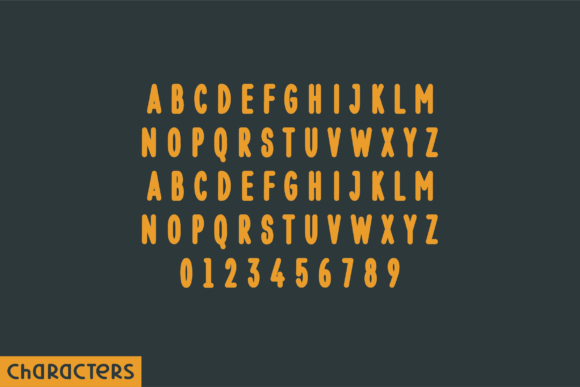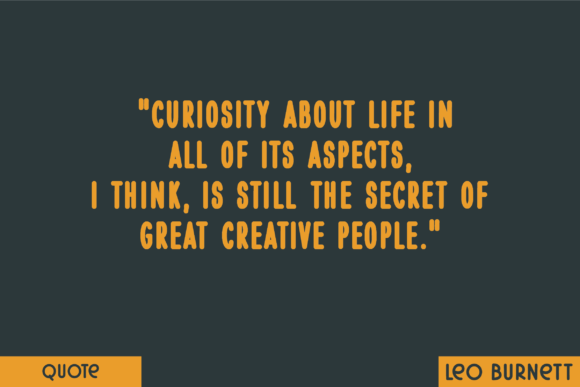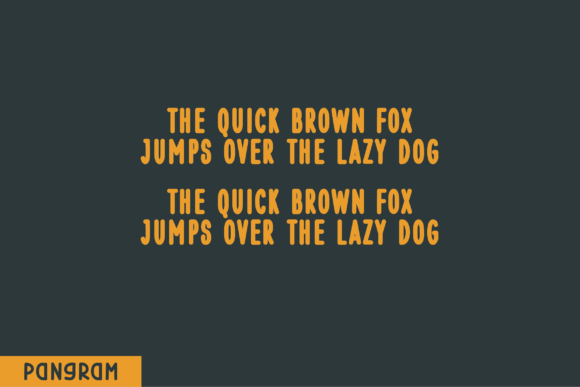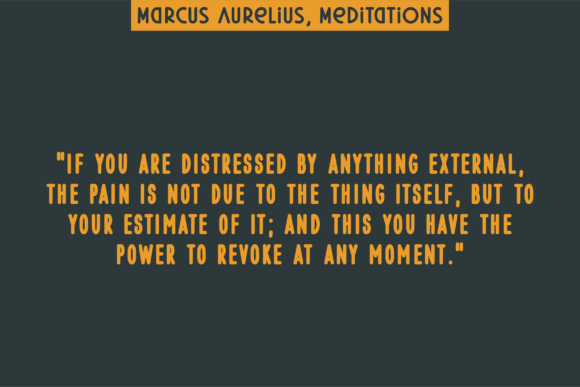
Introducing Buffalots Font: The Unique Sans Serif for Creative Designs
In the world of typography, a new font has emerged that’s making waves among designers and crafters alike. Meet Buffalots, a natural sans serif font that’s been crafted with a unique approach. What sets Buffalots apart is its distinctive characteristic of being created without changing a single node in each character’s indentation. This innovative approach makes Buffalots a standout in the realm of typography, perfect for a variety of design applications.
The Story Behind Buffalots
Buffalots is more than just a font; it’s a design statement. Its creator aimed to produce a typeface that maintains the natural essence of its characters while offering a clean, sans serif aesthetic. This was achieved by meticulously working on the font’s nodes, ensuring that not a single one was altered. The result is a font that exudes a sense of organic simplicity and authenticity.
Characteristics of Buffalots Font
- Natural Sans Serif: Buffalots offers a fresh take on the sans serif category, with clean lines and a natural flow that makes it highly legible.
- Unique Node Approach: The font’s development involved a unique process where no node in each character’s indentation was changed. This approach preserves the natural indentation of characters, giving Buffalots its distinctive look.
- Versatility: Buffalots is incredibly versatile, making it suitable for a wide range of design projects. Whether you’re working on quotes, notes, t-shirt designs, or product packaging, Buffalots can add a touch of uniqueness and personality to your creations.
Use Cases for Buffalots
Buffalots’ distinctive characteristics make it an excellent choice for various design applications. Here are some of the ideal use cases for this unique font:
- Quotes and Notes: Add a personal touch to your inspirational quotes, journal notes, or any textual content with Buffalots. Its natural flow and clean lines make it perfect for reading and adding a personal flair to written content.
- T-Shirt and Merchandise Design: Stand out in the world of apparel and merchandise design with Buffalots. Its unique aesthetic can add a quirky and modern touch to t-shirts, hoodies, stickers, and more.
- Product Design: For product designers, Buffalots offers a fresh typographic solution. Use it for product labels, packaging, or any digital and print materials that require a clean yet distinctive font.
- Digital Content: Enhance your digital content, such as blog posts, social media graphics, and presentations, with Buffalots. Its readability and unique style can help your content stand out in a crowded digital landscape.
Why Designers and Crafters Love Buffalots
Designers and crafters are always on the lookout for fonts that can add a unique touch to their projects. Buffalots has quickly become a favorite for several reasons:
- Ease of Use: Buffalots is incredibly easy to integrate into any design project, making it accessible for both beginners and seasoned designers.
- Customization: Despite its natural and somewhat rigid approach to node design, Buffalots offers enough flexibility for customization to fit various design needs.
- Uniqueness: In a sea of similar fonts, Buffalots stands out with its one-of-a-kind approach to character indentation, ensuring your designs won’t go unnoticed.
Buffalots font is a game-changer in the world of typography, offering a unique blend of natural simplicity and sans serif cleanliness. Its distinctive development process, coupled with its versatility and aesthetic appeal, makes it an excellent addition to any designer’s toolkit. Whether you’re crafting quotes, designing merchandise, or working on product labels, Buffalots is sure to add a fresh and engaging element to your creations. Discover the creative possibilities with Buffalots and elevate your designs to new heights.